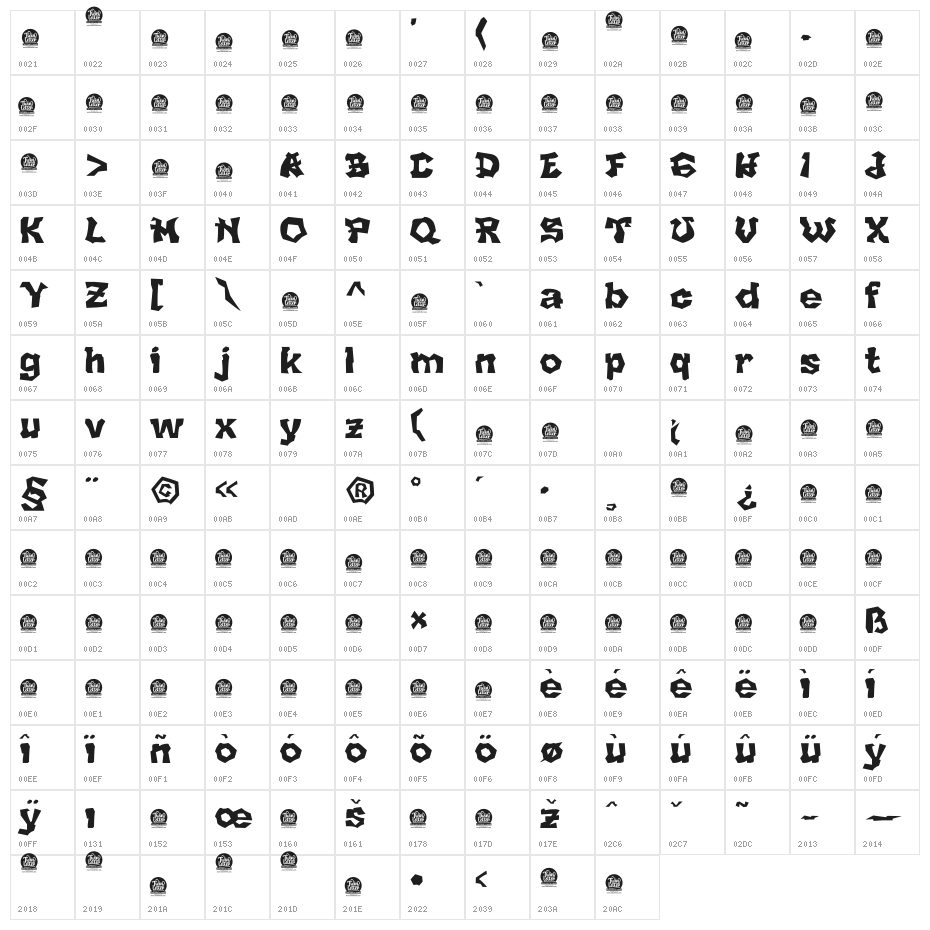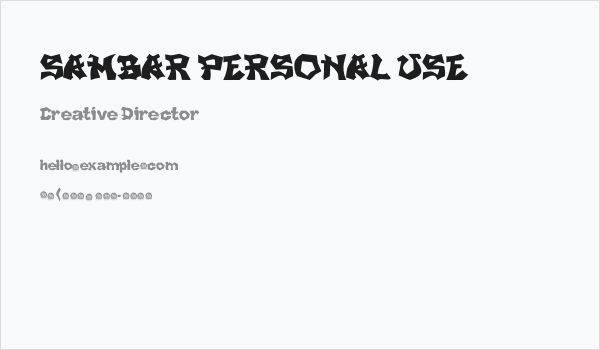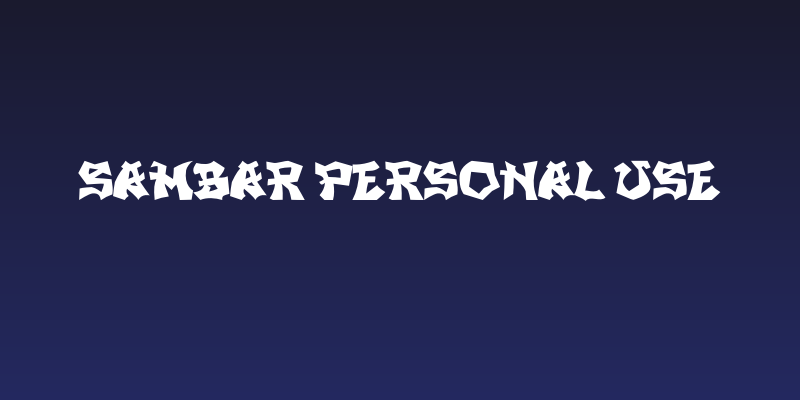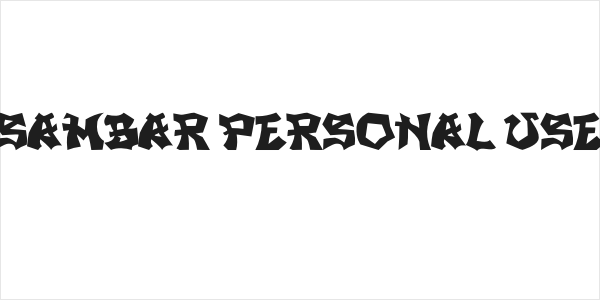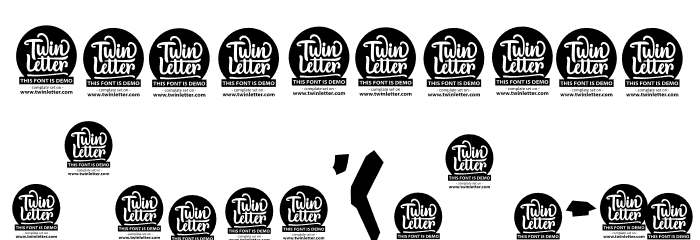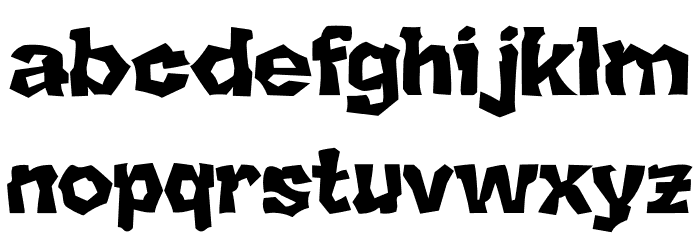
SAMBAR PERSONAL USE Font
SAMBAR PERSONAL USE Description
This font features a bold and dynamic style with sharp, angular edges and a graffiti-like appearance. The characters are heavily stylized, with exaggerated curves and points that give them a unique, edgy look. The uppercase and lowercase letters maintain a consistent design, with a strong emphasis on geometric shapes and a slightly condensed form. The numbers and special characters follow the same aesthetic, ensuring a cohesive look across all glyphs. This font's striking appearance makes it ideal for attention-grabbing designs.
| Proposed Projects | Perfect for urban-themed designs, streetwear branding, music album covers, and event posters. |